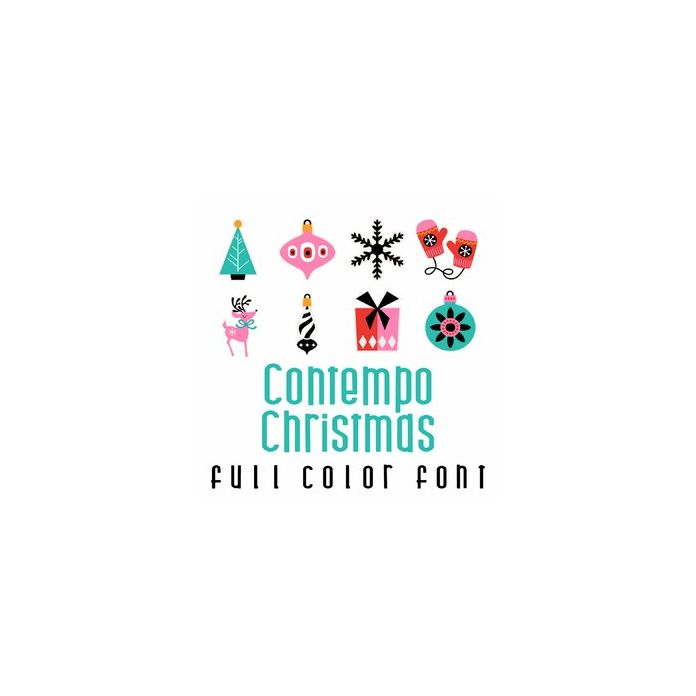
This adorable full color doodlebat font features retro style holiday imagery. Perfect for cards, crafts, gifts, decor, scrap book pages, planner stickers and more!